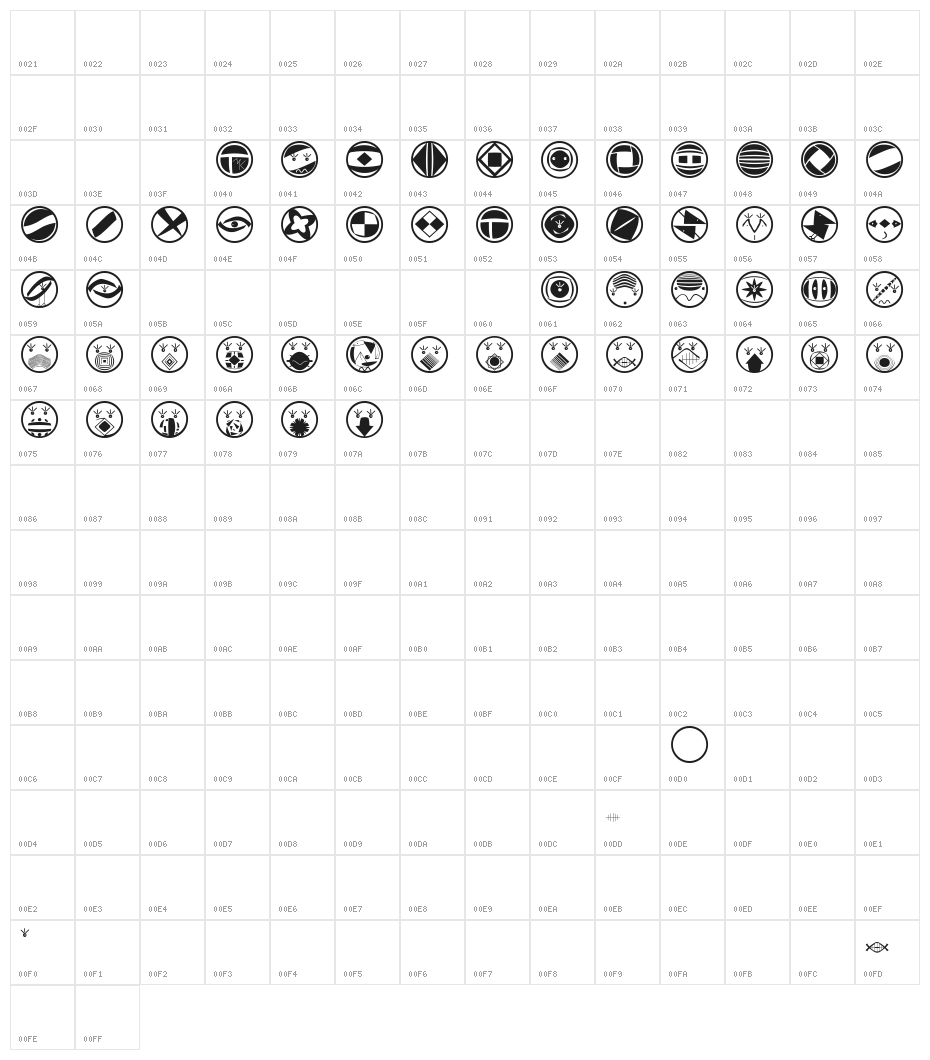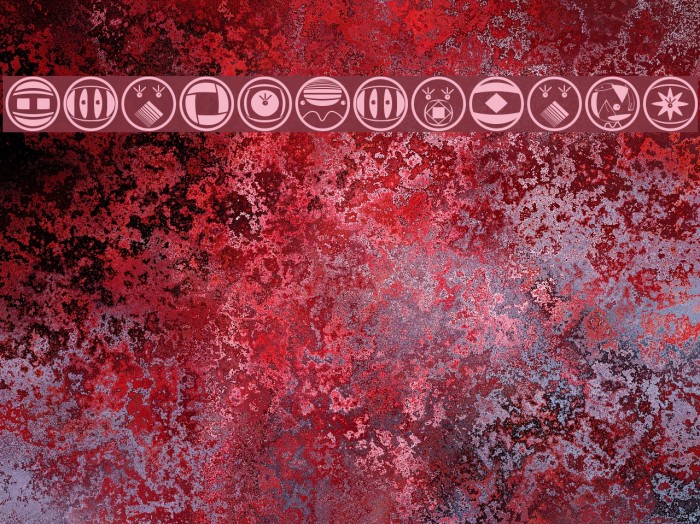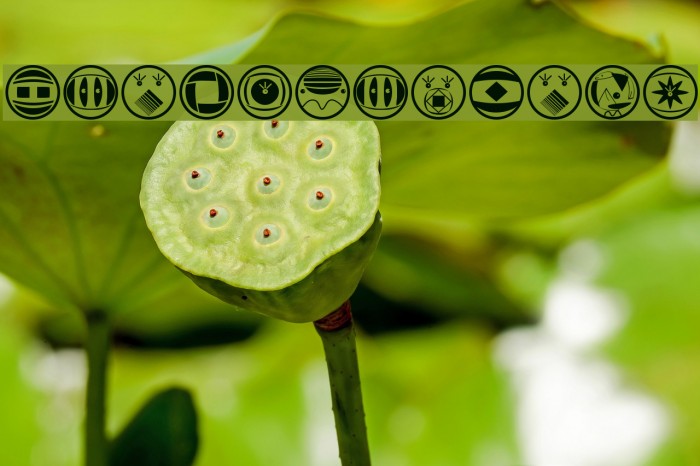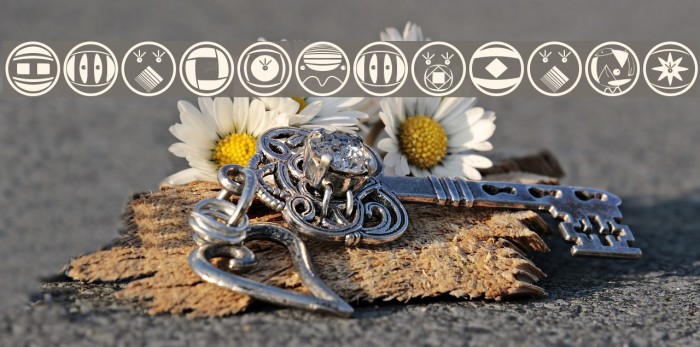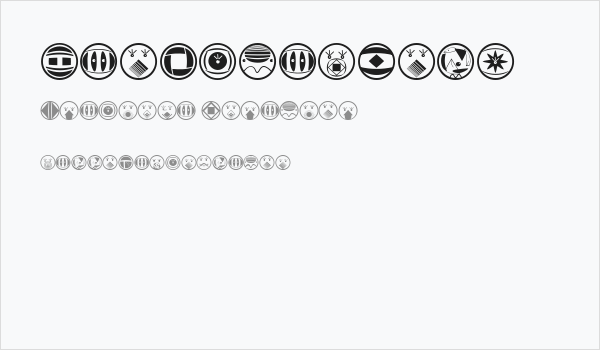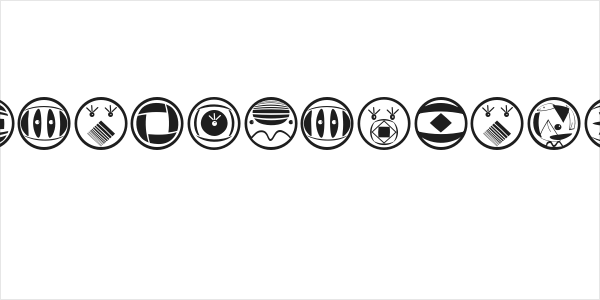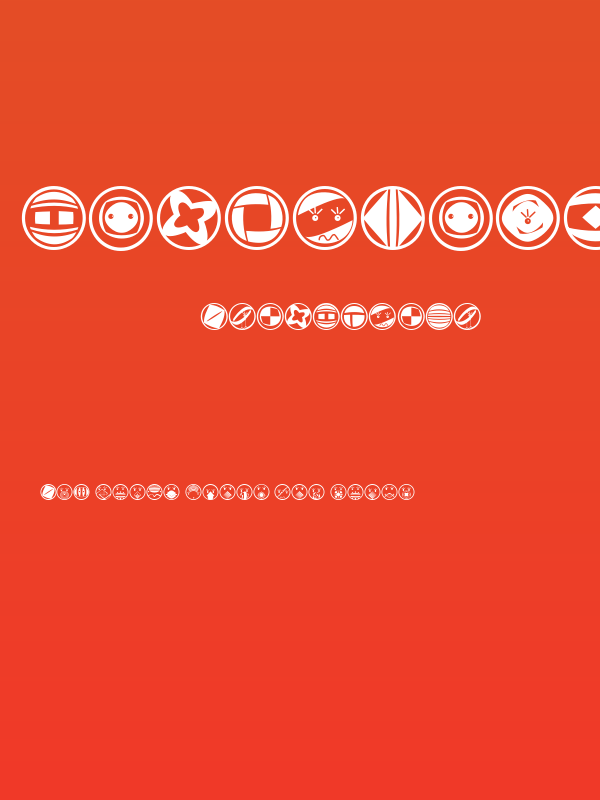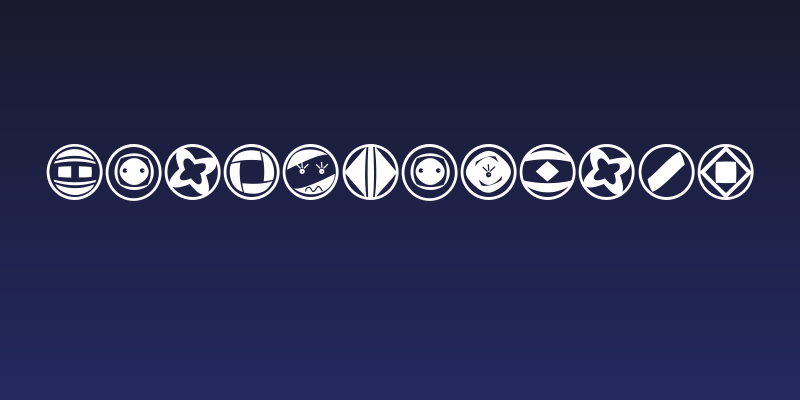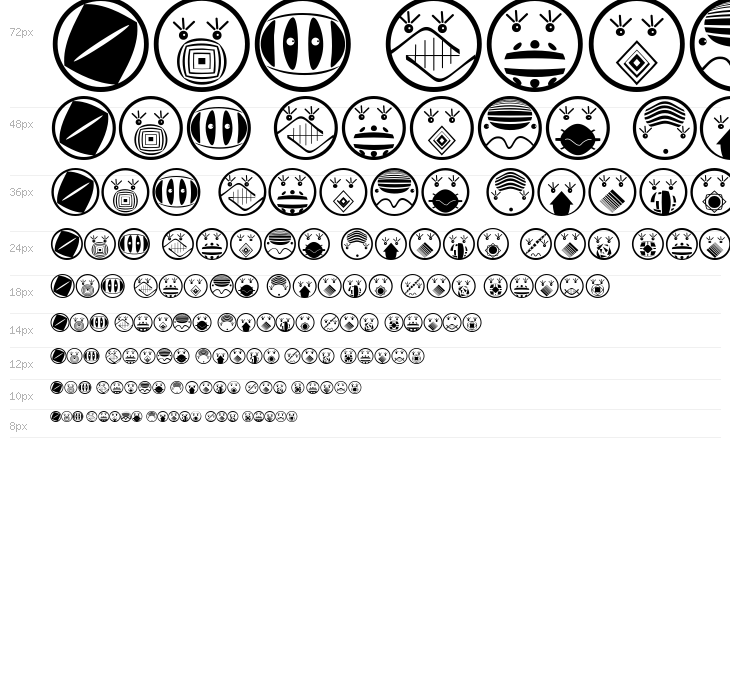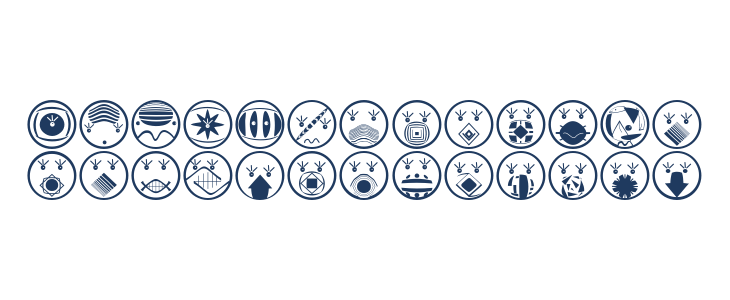
GeoFacesBold Font
GeoFacesBold Description
A playful, decorative dingbat font featuring geometric shapes and abstract faces within bold circular outlines. Each character is a unique icon, blending geometric patterns with expressive facial elements, creating a whimsical and modern visual language.
| Overall Style | Decorative, Modern, Playful |
| Use Case | Logos, Icons, Posters, Branding, Decorative elements |
| Proposed Projects | Branding, childrenΓ’β¬β’s books, posters, stickers, educational materials, playful packaging, digital icons. |